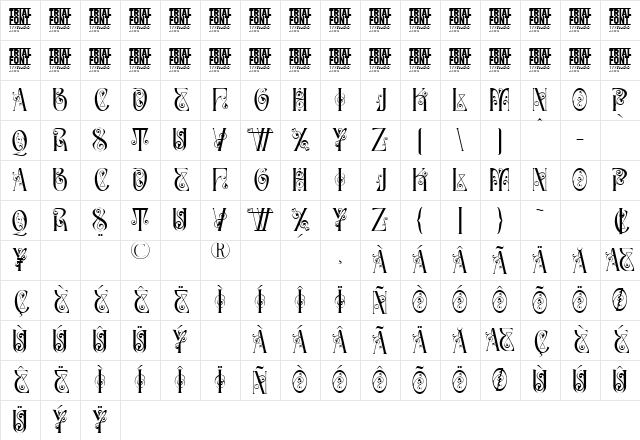
Article Master Demo Regular
Foundry: 177Studio.com
Designer: 177Studio.com
Design Context for Article Master Demo
Article Master Demo is a composed and adaptable typeface that performs quietly and consistently across a wide range of design contexts.